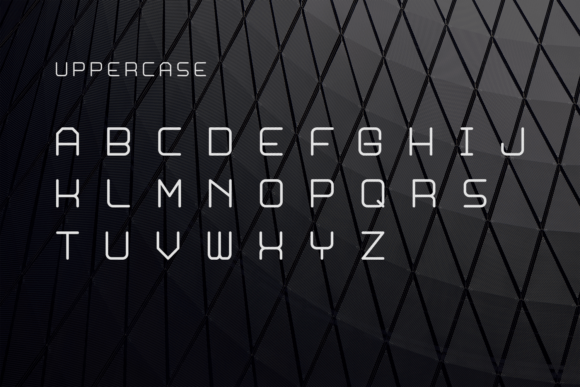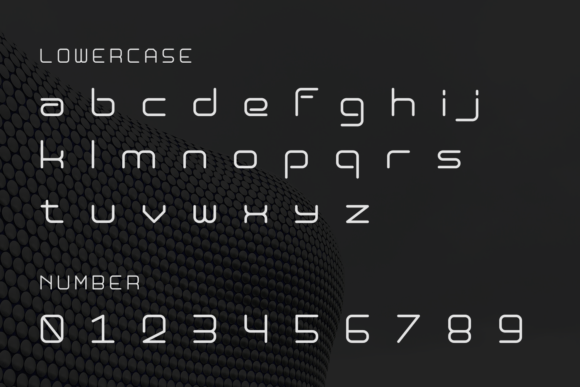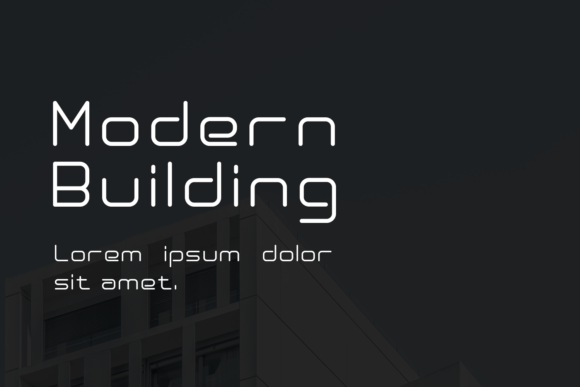
Introduction to Royage Font
Royage is a modern and stylish display font.
Add it to your creative ideas and you will be amazed by the generated outcome .
Key Features of Royage Font
Why Choose Royage Font?
Royage Font offers exceptional quality and versatility, making it a valuable addition to your design toolkit. Whether you’re creating for personal projects or commercial use, Royage Font delivers professional results.